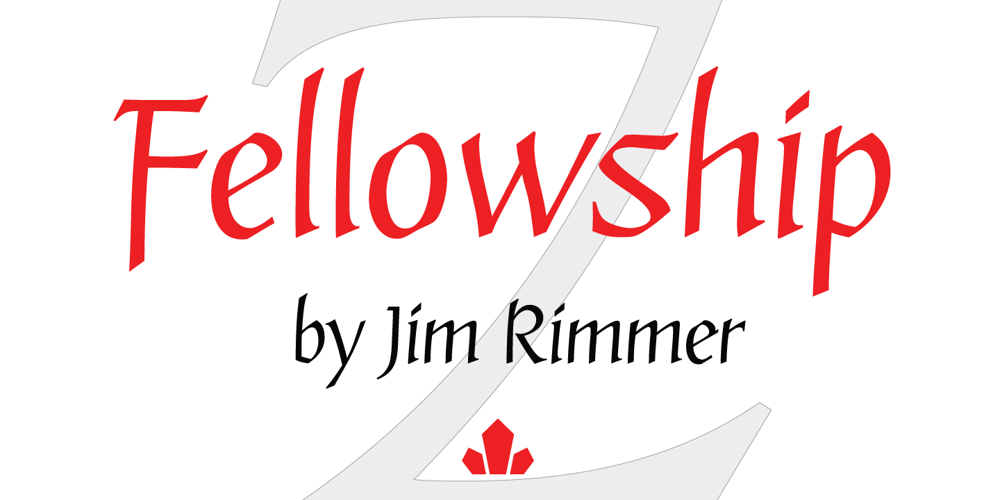
Fellowship Font Family was designed by Jim Rimmer and published by Canada Type. Fellowship contains 1 styles and family package options. Named in tribute to the members of the American Typecasting Fellowship, this font is an original expression of Jim Rimmer’s left-handed calligraphy. It was designed and cut in 24 p in the early 1980s, then cast as foundry type on Jim’s own Thompson typecasting machine. This alphabet exhibits classic semi-italic text tension, with sqaurish minuscules and hybrid renaissance majuscules. Jim’s unique sense of restrained but attractive typo-calligraphic creativity puts on quite a show here. Fellowship was updated and remastered for the latest technologies in 2013. It comes with plenty of built-in alternates and ligatures. Its glyphset contains over 420 characters, and supports the majority of Latin-based languges. 20% of this font’s revenues will be donated to the GDC Scholarship Fund, supporting higher typography education in Canada.